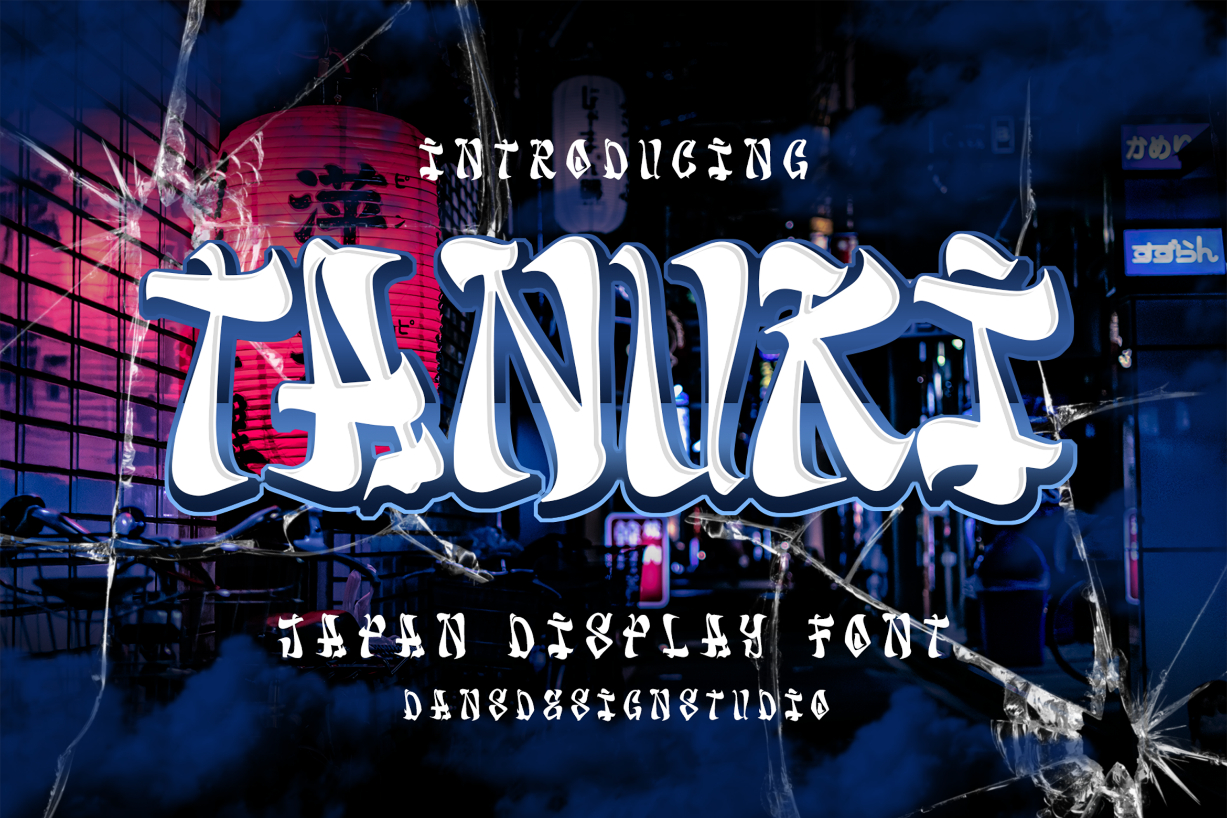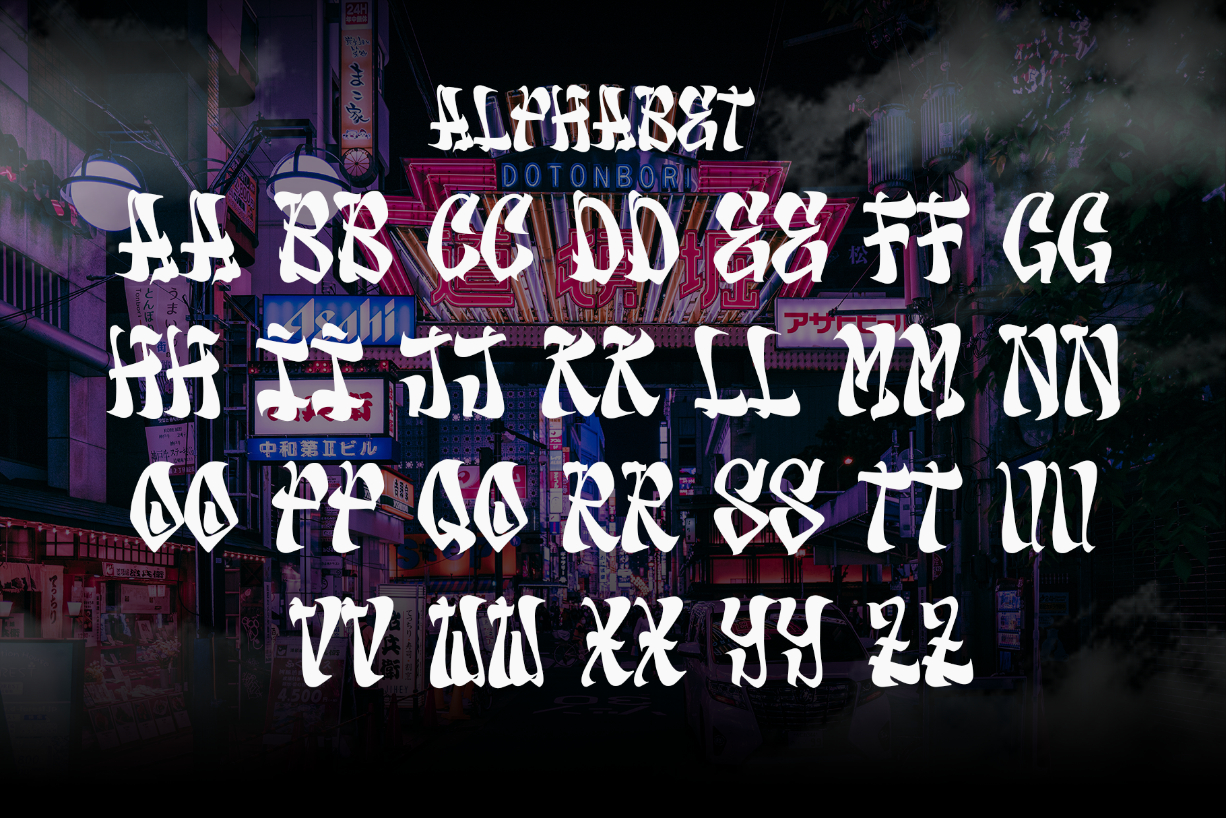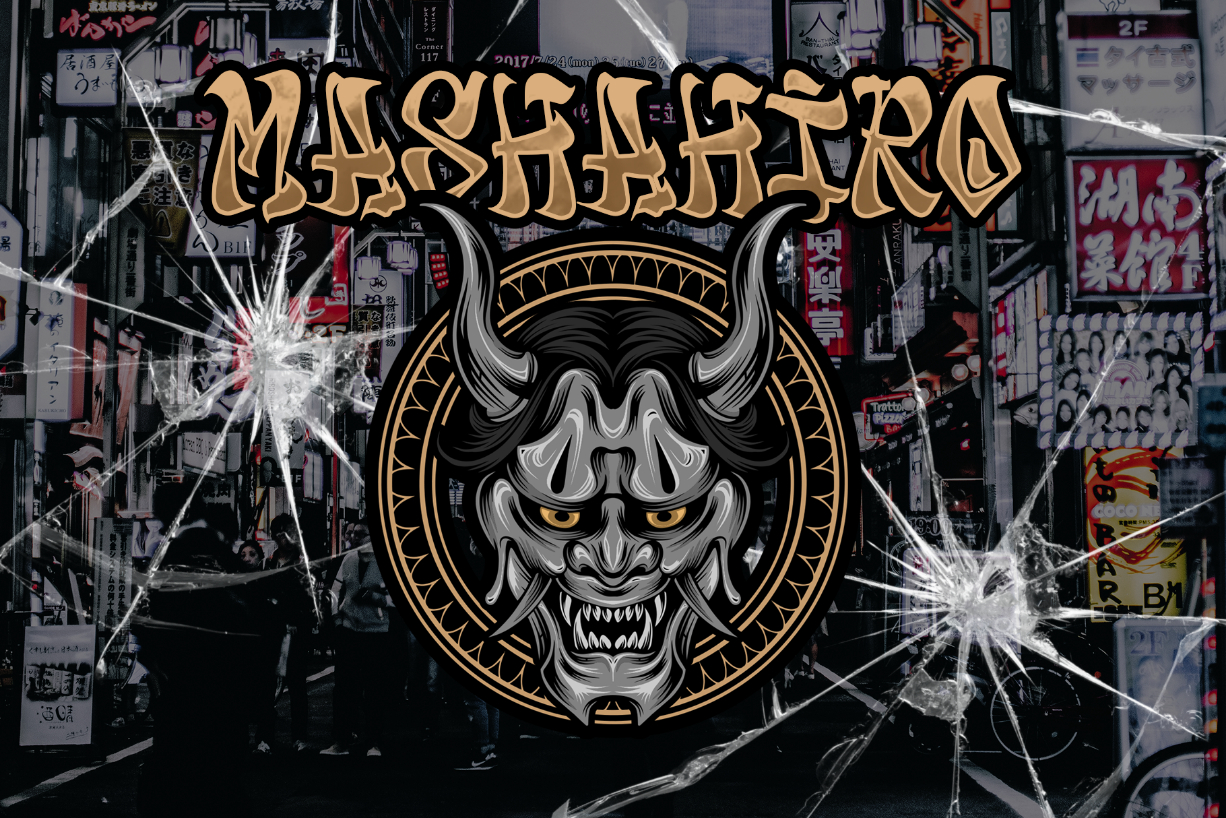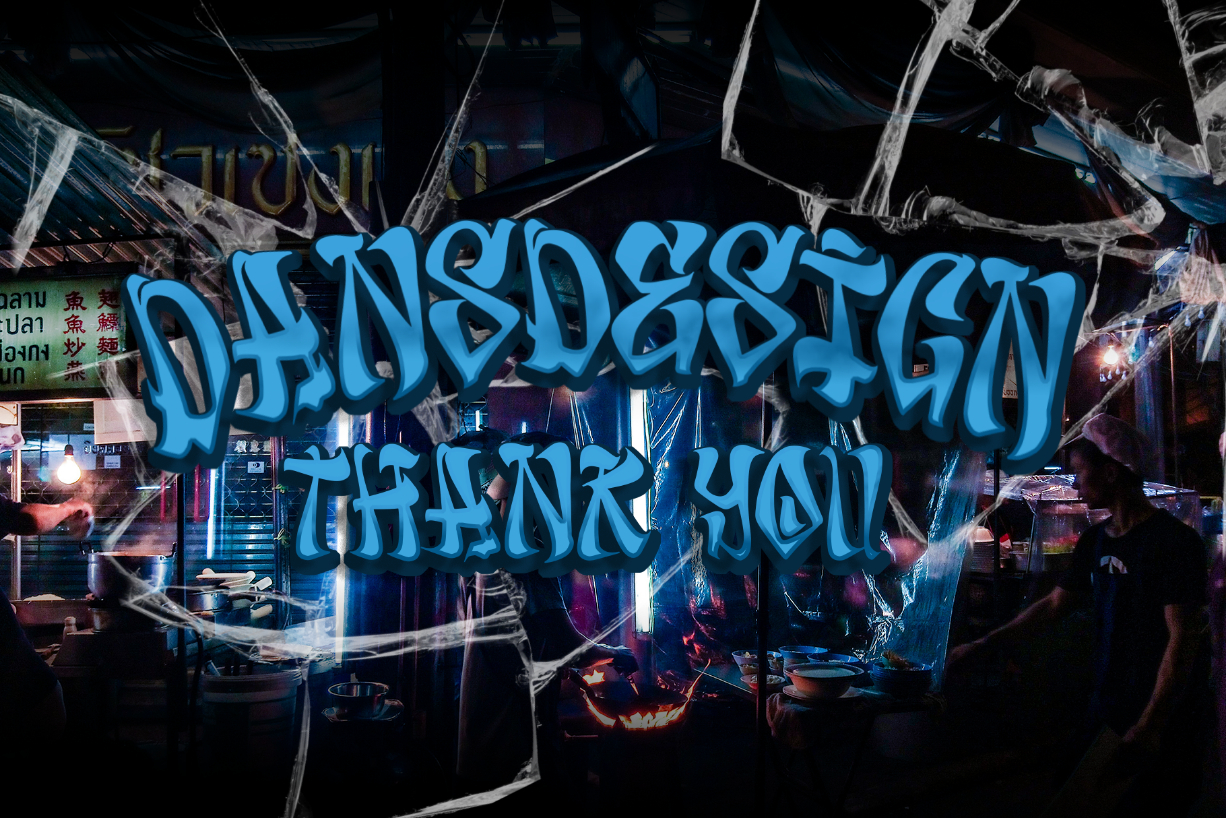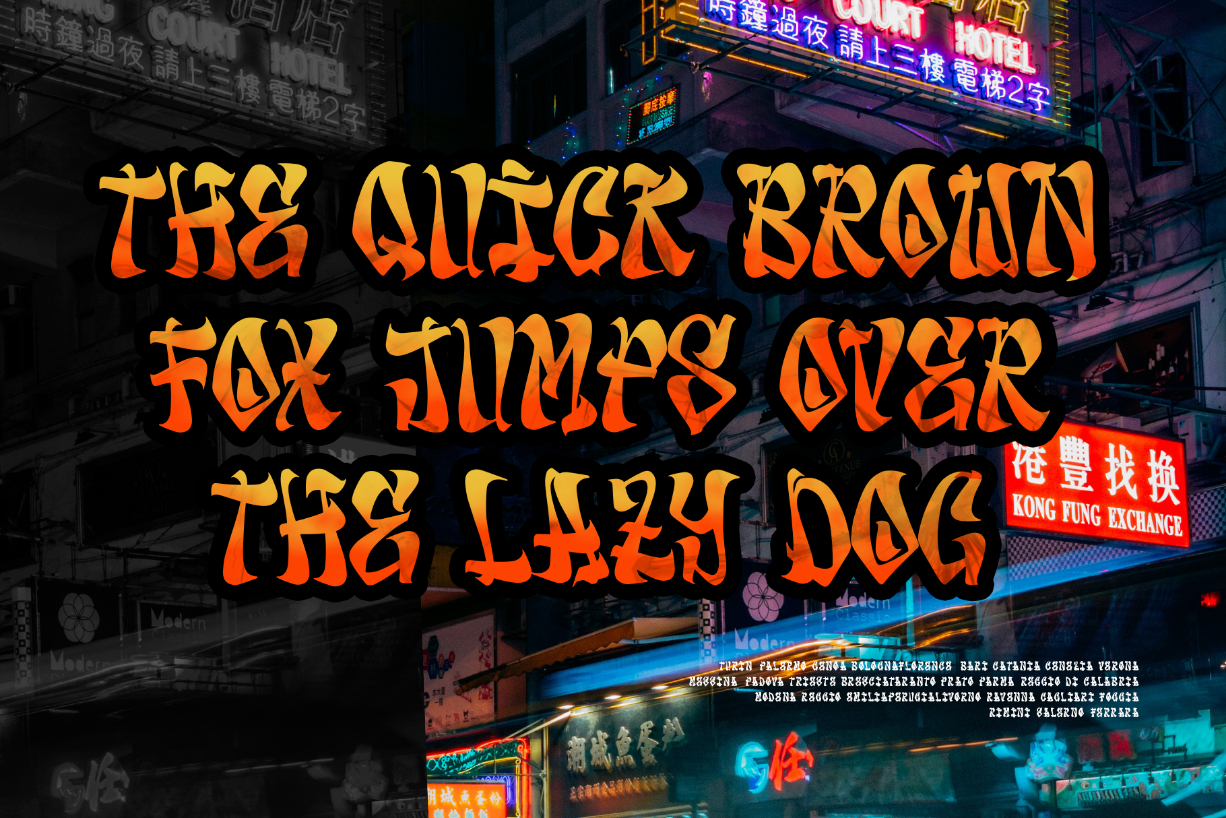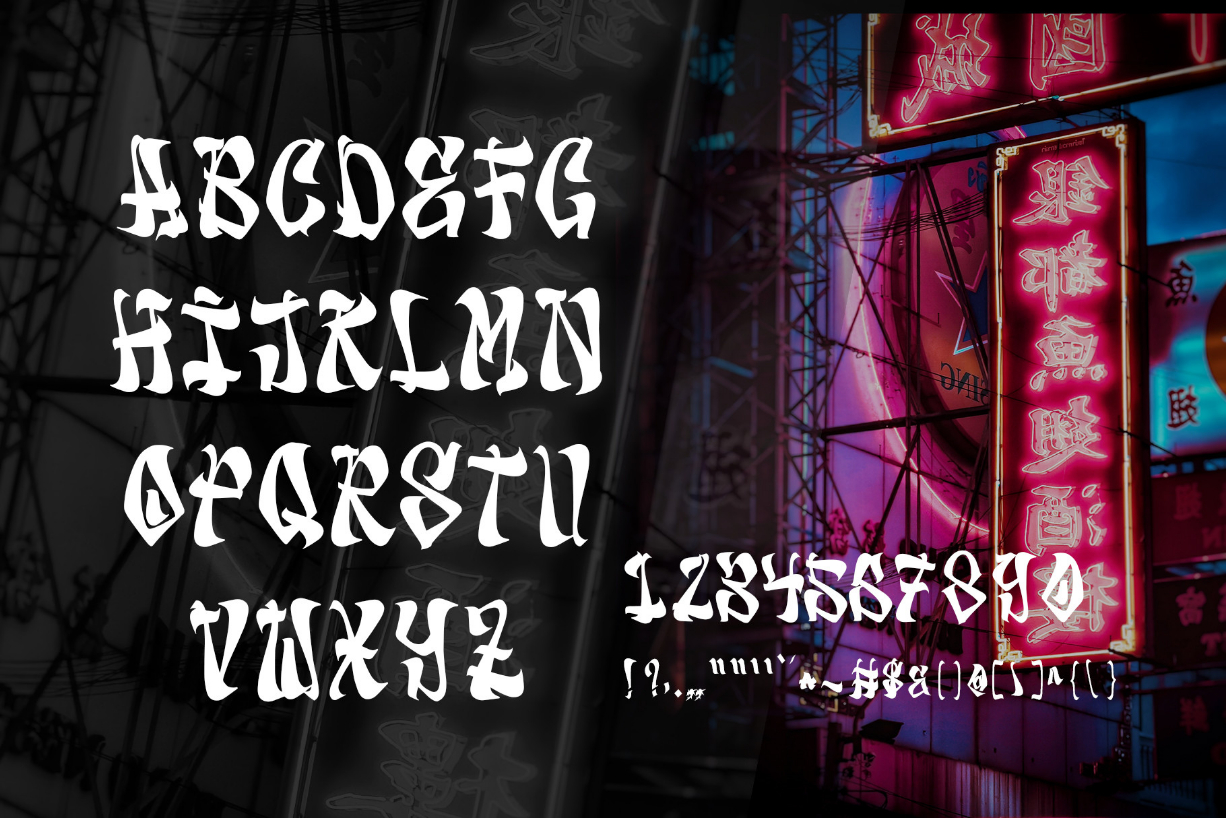
Tanuki Font
About Tanuki Font
Tanuki is a distinct, highly detailed, and chic Japanese-inspired blackletter font. It would make a great choice for exquisite retro-urban designs, tattoo business branding, logos, vintage designs, and more.